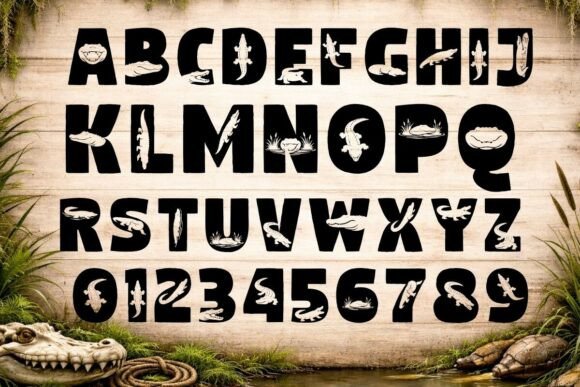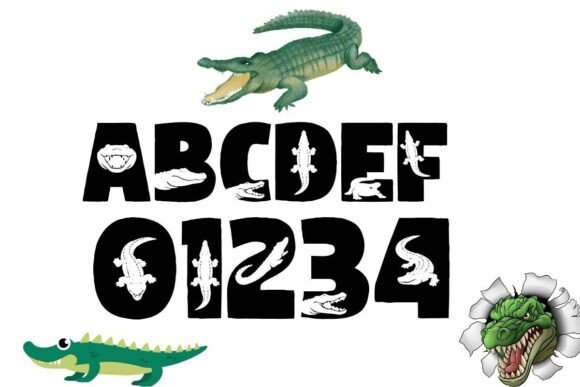
Unleash the Wild Side of Your Designs with Gator Bites Font 🐊
Have you ever been in the middle of a design project, and suddenly, you just can’t seem to find the right font? I know I have. It was a swampy summer afternoon when I was working on a branding project for an outdoor gear company. The client wanted something bold, something that screamed “wild” and “adventure.” That’s when I stumbled upon Gator Bites, an alligator-themed display font that would change the game for my design.
The First Impression: A Bold and Chunky Typeface
Gator Bites is more than just a font; it’s a statement piece. This handcrafted typeface features chunky, powerful letters with embedded alligator silhouettes inside each character. It’s perfect for reptile lovers, wildlife themes, southern designs, kids’ projects, and bold statement merchandise. Whether you’re designing t-shirts, posters, stickers, classroom décor, or branding for outdoor brands, this font delivers strong personality and swamp-inspired attitude.
An Honest Review: The Good and the Quirks
- ✨ Unique and eye-catching design with embedded alligator silhouettes
- ✅ Bold and chunky letters perfect for making a statement
- 🌿 Great for wildlife themes, outdoor branding, and kids’ projects
⚠️ While Gator Bites is incredibly versatile, it’s primarily designed for display purposes. This means it might not be the best choice for body text or smaller font sizes. Additionally, some users might find the embedded alligator silhouettes a bit distracting, depending on the design context.
🤔 Another thing to consider is that, like any font with intricate designs, it may not render perfectly in all applications or platforms. However, for its intended use as a display font, Gator Bites truly shines.
Exploring Alternatives: Similar Fonts for Different Vibes
Gator Bites was inspired by the wild swamps of the southern United States. The designer, an avid nature lover and typography enthusiast, wanted to capture the essence of these fascinating creatures in a font. The result is a typeface that’s both bold and charming, perfect for bringing a touch of the wild to any design project.
Q: Is Gator Bites suitable for body text?
A: While Gator Bites is primarily designed as a display font, it can be used for short paragraphs of body text. However, for longer texts, a more traditional font might be more readable.